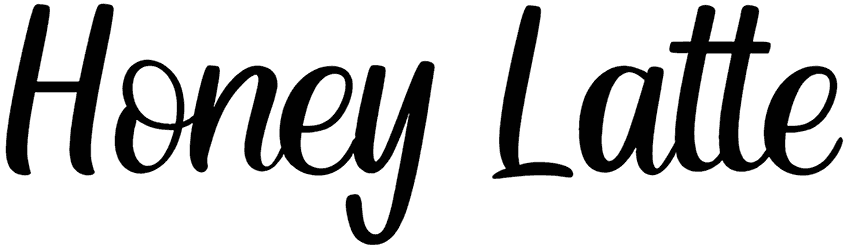
Honey Latte Font
Simple, minimal, and clean are the qualities that come to mind when seeing Honey Latte at first glance. This handwritten font has a hand-drawn style that creates an organic touch in your designs and can serve your creativity to implement different projects.
By using this coffee font, you can create a comfortable and regular style in your designs that is easy to read. That’s why it’s great for cover design, body text, and descriptions.